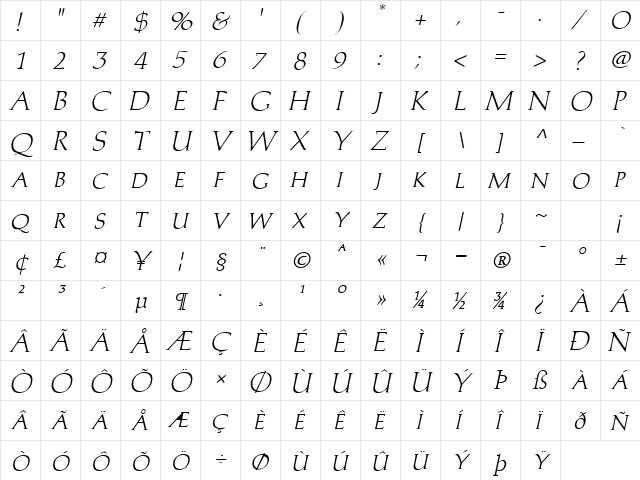
Trajans-Caps Italic
Design Context for Trajans-Caps Typeface
Trajans-Caps is a composed and adaptable typeface that performs quietly and consistently across a wide range of design contexts. Its italic angle brings a sense of urgency and motion to the letterforms.
Pro Tip: Try Trajans-Caps for annotation and caption copy alongside an upright companion — the contrast in angle creates a dynamic but ordered typographic system.